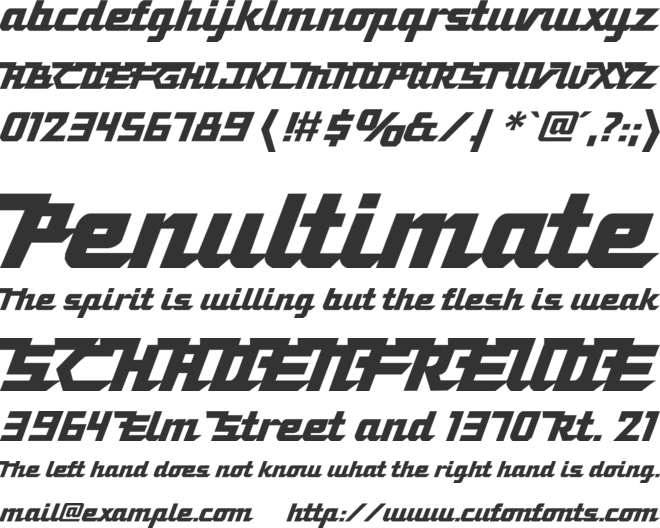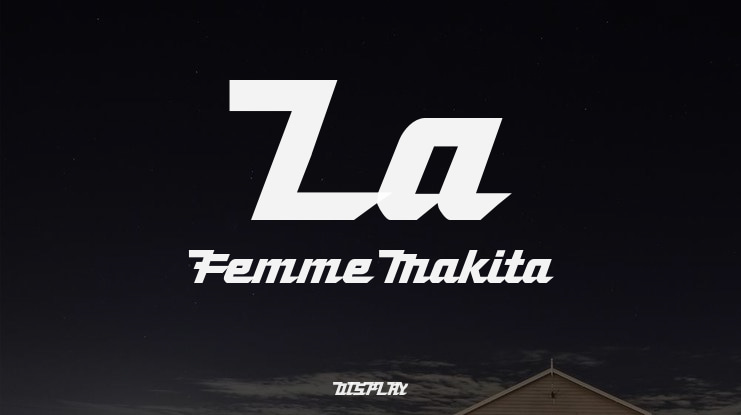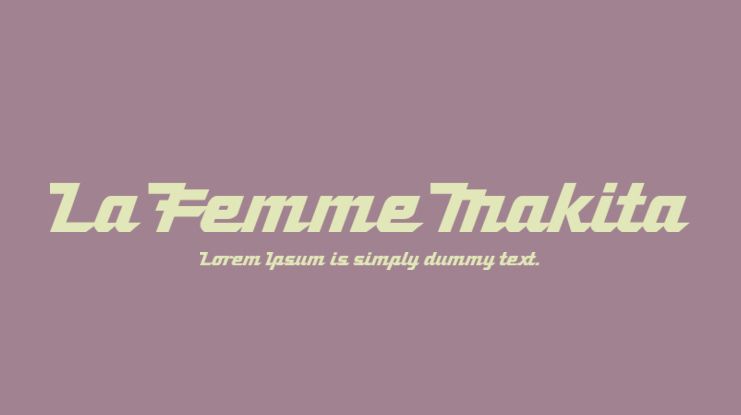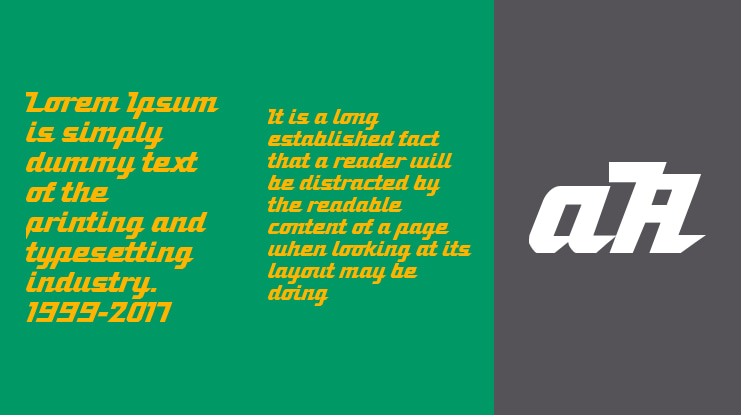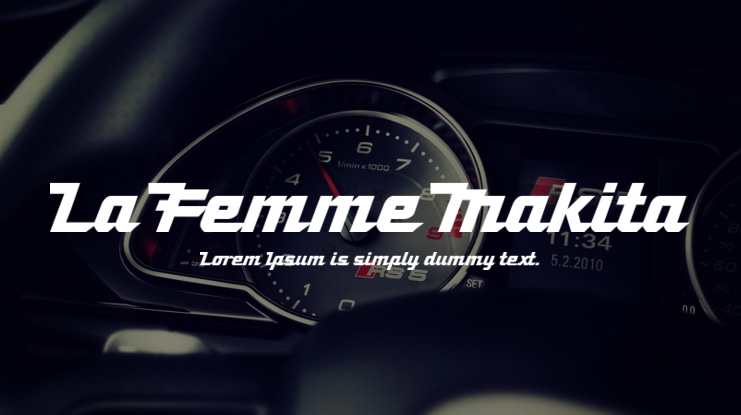
La Femme Makita Font
A font inspired by the Makita tool company logo, which I've named "La Femme Makita." This name is a tribute to my wife who often assists me with volunteer building projects using Makita tools, earning her the affectionate nickname "La Femme Makita." For detailed information about the font and its features, please refer to the included README. If you appreciate the font, consider donating via the following platforms: